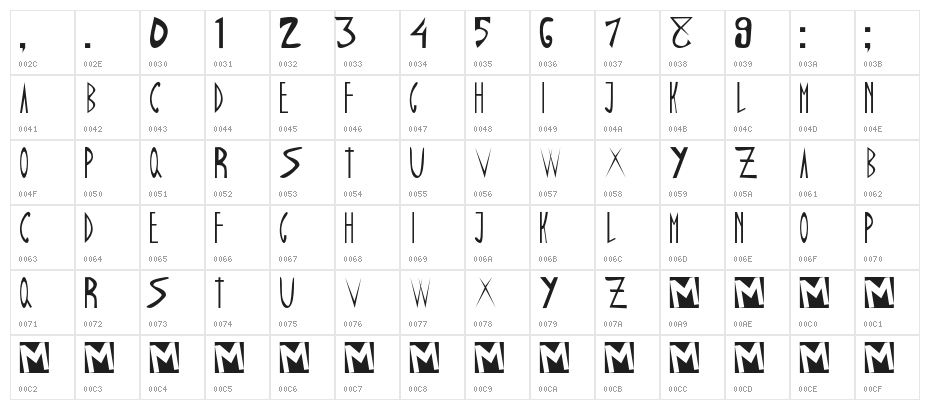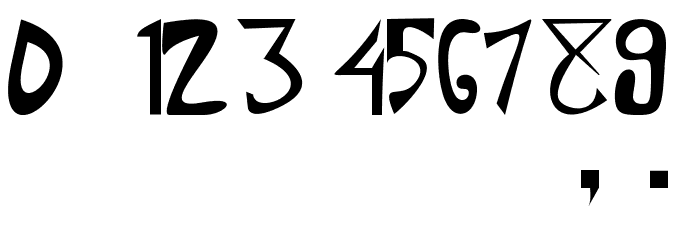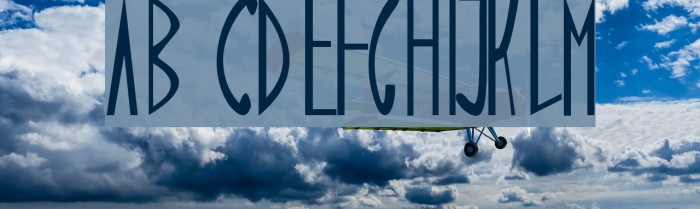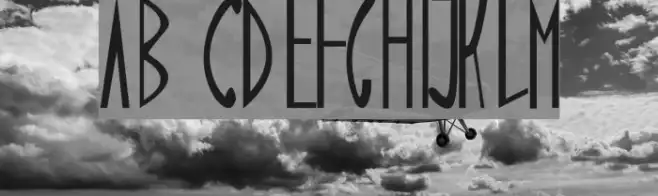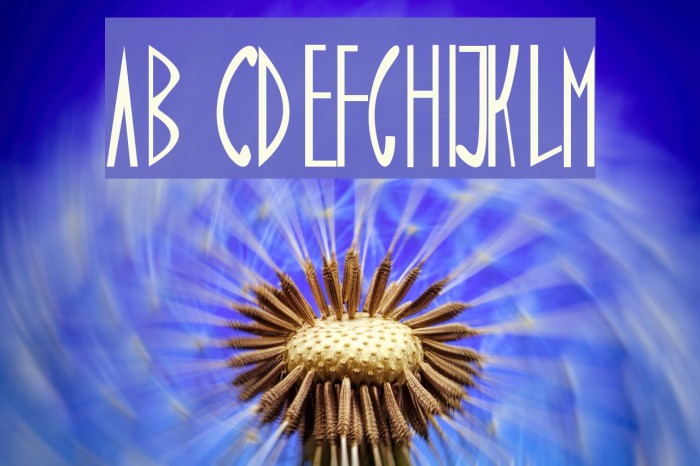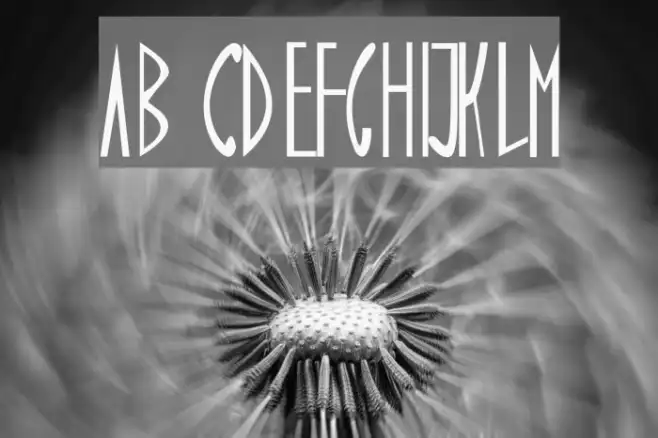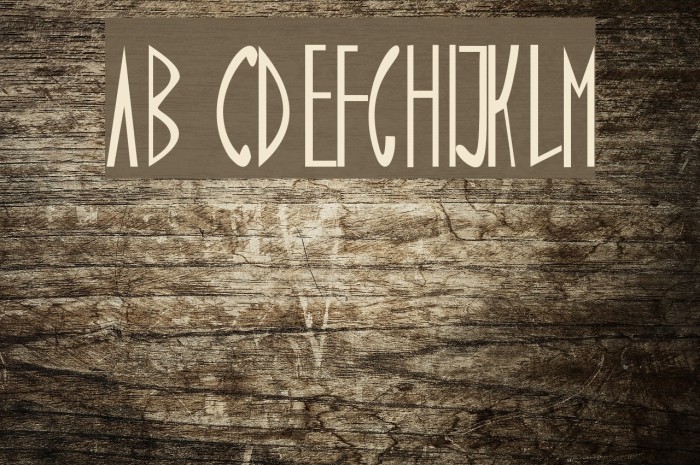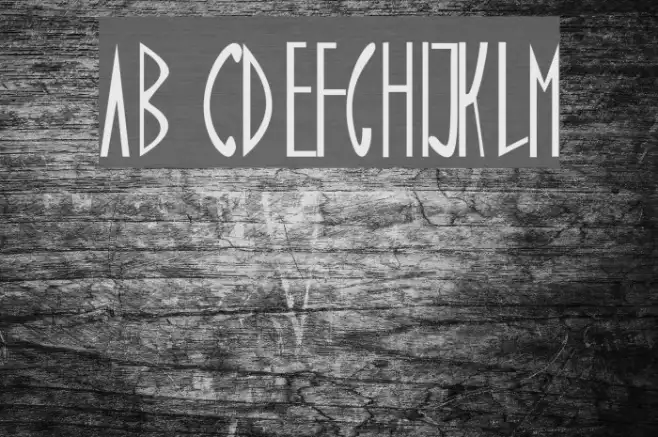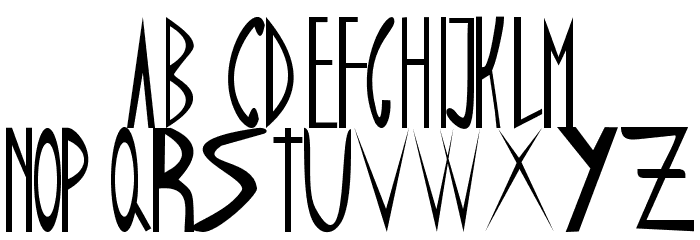
DAMAIPEMILU-Normal Font
DAMAIPEMILU-Normal Description
This font features a unique and artistic style with a mix of sharp angles and smooth curves. The uppercase letters are tall and narrow, with some characters like 'A', 'V', and 'W' having elongated, pointed forms. The lowercase letters maintain a similar aesthetic, with a playful yet sophisticated appearance. The numbers are distinct, with varying widths and creative shapes, adding to the font's decorative nature. This font's overall design is eye-catching and modern, making it suitable for creative and bold projects.